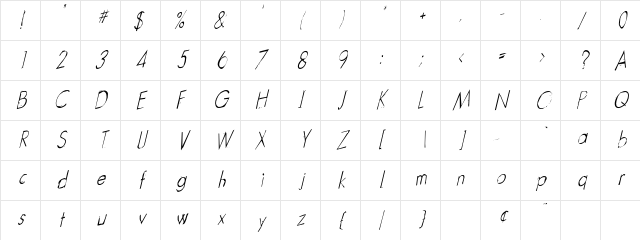
Garbage Italic
Garbage Family
Garbage Italic
Design Context for Garbage
Garbage is a composed and adaptable typeface that performs quietly and consistently across a wide range of design contexts. The slanted form adds forward momentum and visual energy.